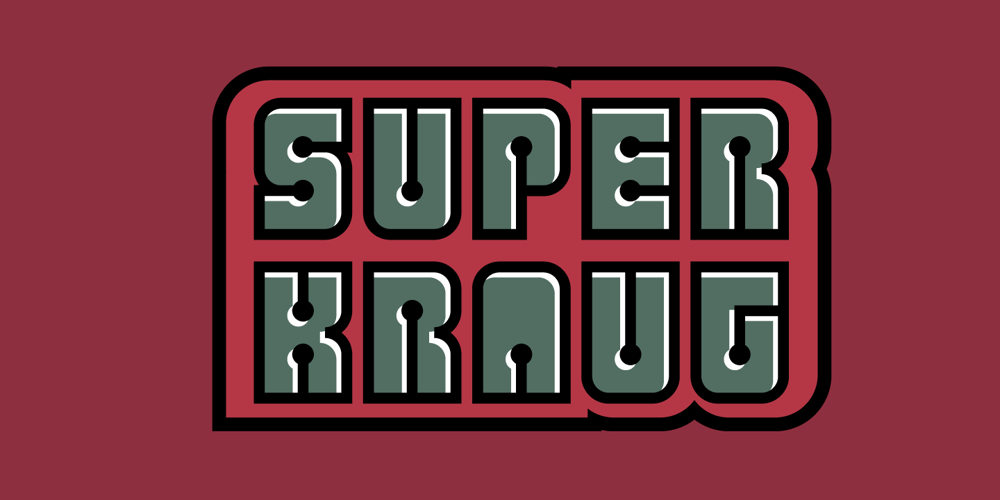
Superkraut Font Family was designed by Jakob Fischer and published by PizzaDude.dk. Superkraut contains 3 styles and family package options. Based on sketches I made like 15 years ago on squared paper…this is a true grid (!) font! Great for something that needs that retrogame slash futuristic lazerbeam computer look!